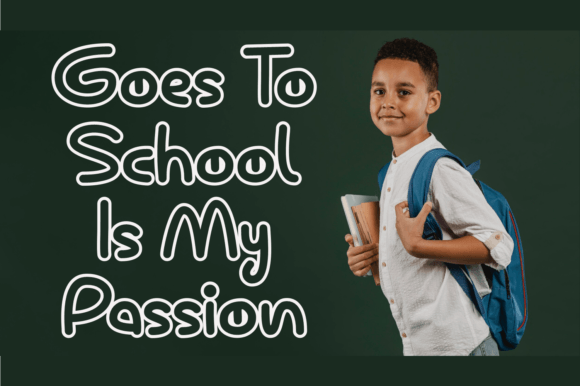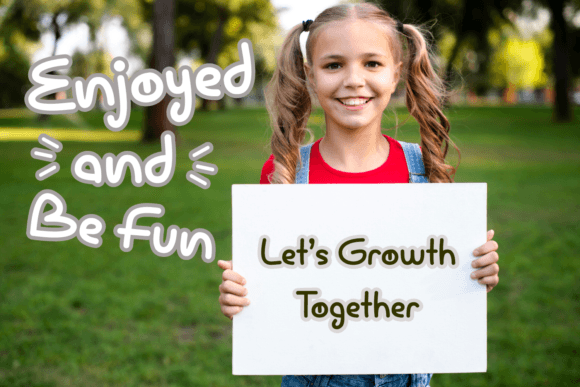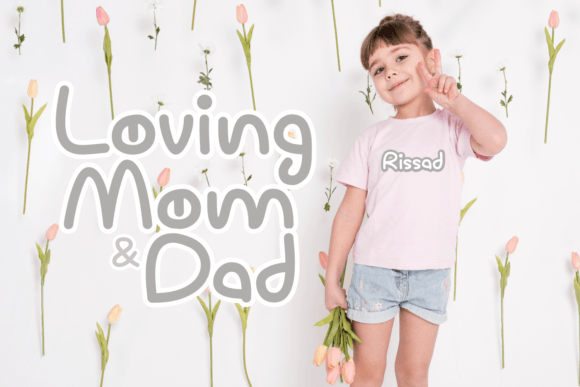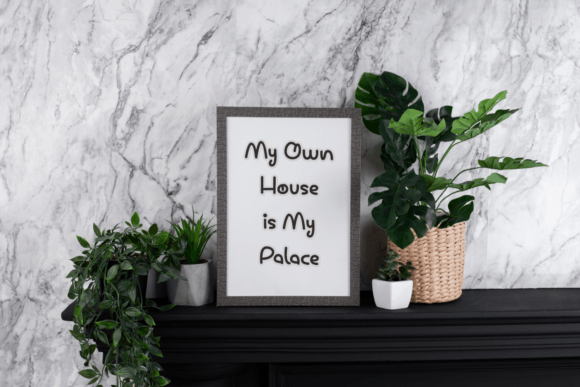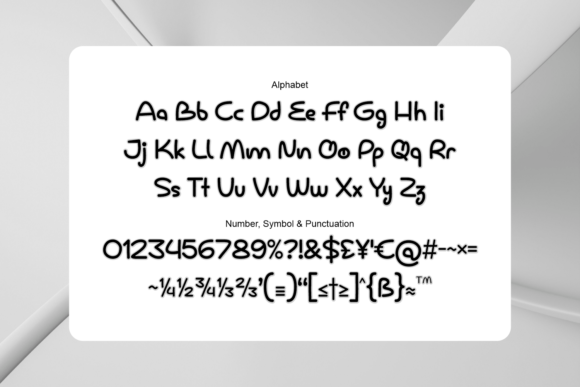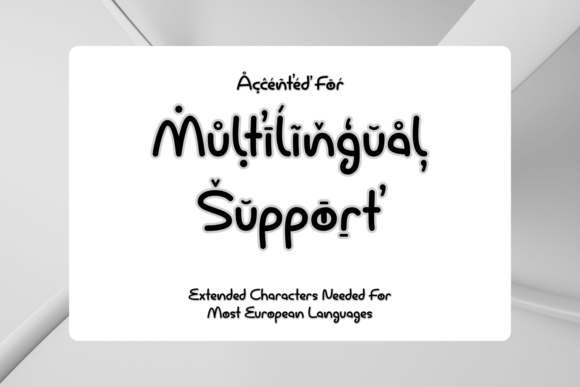
Gondomanan Font: Elevate Your Designs with a Playful and Stylish Touch
In the world of typography, fonts play a crucial role in conveying the tone and personality of a design. For designers and crafters looking to add a youthful and vibrant spirit to their projects, the Gondomanan font is an excellent choice. This playful and stylish font is versatile, making it suitable for a wide range of applications, from professional branding designs to casual social media posts.
What is Gondomanan Font?
Gondomanan is a modern font designed to bring a fresh and energetic feel to any design project. Its unique style blends playfulness with sophistication, making it an ideal choice for designers who want to create visually appealing and engaging content. The font’s youthful spirit is perfect for capturing the attention of younger audiences, while its stylish appearance ensures that it remains suitable for professional applications.
Key Features of Gondomanan Font
- Playful and Stylish: Gondomanan’s design combines playful elements with a stylish appearance, making it perfect for a wide range of design projects.
- Youthful Spirit: The font’s modern and energetic feel is ideal for designs aimed at younger audiences or for adding a fresh touch to any project.
- Versatile: Gondomanan is suitable for both professional and casual designs, making it a versatile addition to any designer’s toolkit.
- High-Quality: The font is designed to ensure clarity and legibility across various sizes and applications.
Uses of Gondomanan Font
The versatility of Gondomanan font makes it suitable for a variety of design projects. Here are some of the key areas where this font can make a significant impact:
Professional Projects
- Branding Designs: Use Gondomanan to create memorable and stylish brand logos that stand out.
- Labels and Packaging: Add a professional yet playful touch to product labels and packaging.
- Websites: Enhance the user experience with a modern and engaging font that captures visitors’ attention.
- Business Cards: Make a lasting impression with stylish and professional business cards.
Casual Designs
- Packaging: Add a playful touch to product packaging to appeal to a younger audience.
- Posters and Flyers: Create eye-catching posters and flyers that stand out in crowded spaces.
- Social Media Posts: Elevate your social media content with stylish and engaging text.
- Invitations and Special Occasions Cards: Add a personal and playful touch to invitations and special occasion cards.
Why Choose Gondomanan Font?
Choosing the right font for your design project can be daunting, but Gondomanan offers several advantages:
- Uniqueness: Stand out from the crowd with a font that is both stylish and unique.
- Versatility: Use Gondomanan across a variety of projects, from professional branding to casual social media posts.
- Legibility: The font is designed for clarity, ensuring that your message is always clear and readable.
- Modern Appeal: Give your designs a modern and youthful spirit that appeals to a wide audience.
Gondomanan font is a versatile and stylish addition to any designer’s toolkit. Its playful and youthful spirit makes it perfect for a wide range of applications, from professional branding designs to casual social media posts. With its high-quality design, legibility, and modern appeal, Gondomanan is an excellent choice for designers and crafters looking to elevate their designs. Whether you’re working on a professional project or a casual design, Gondomanan font is sure to bring a fresh and energetic feel to your work.